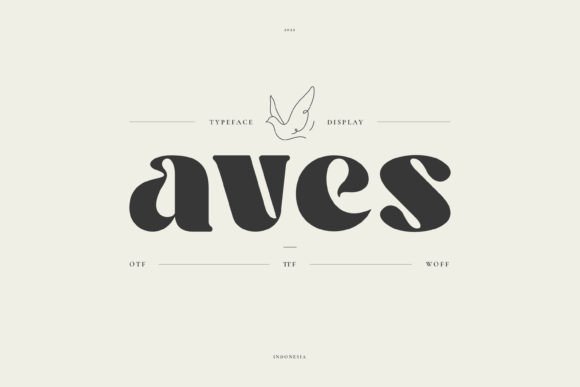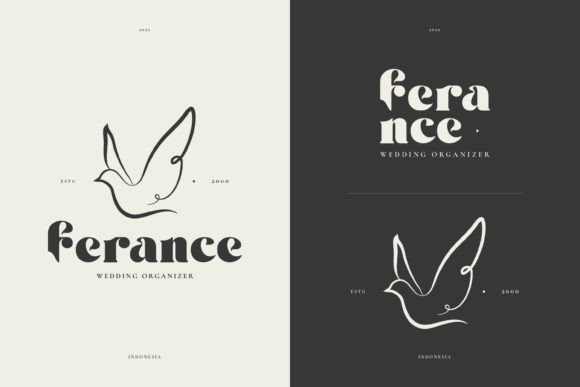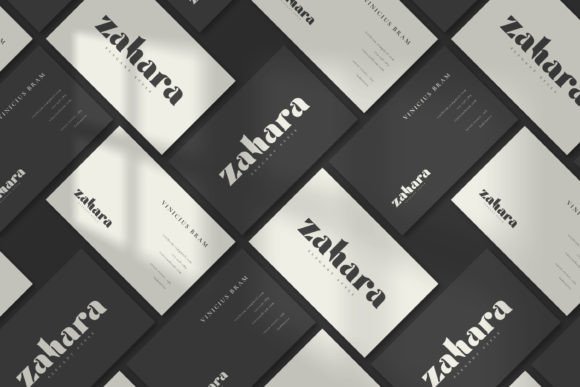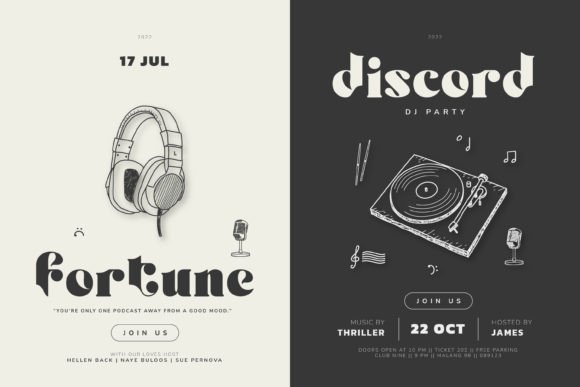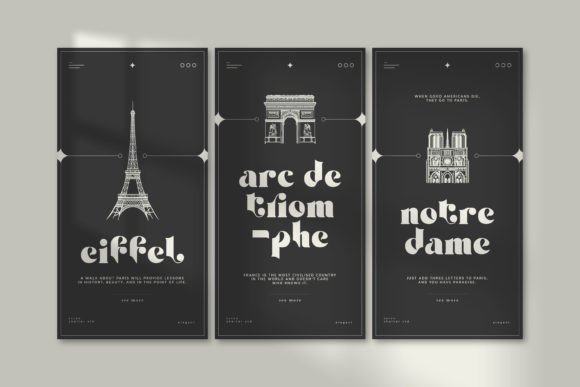
Aves Font
Aves is a splendid serif typeface designed with special characters and shapes. It has curly and sharp letters, making this font look powerful but also elegant. Sassy and solid, Aves is an appropriate use for posters, logos, tags, and other design projects which need thick font but also aesthetic vibes.
Inspired by the dove which brings the elegant, pure, mystical, and lovely but powerful feeling. Aves will make the design legit.